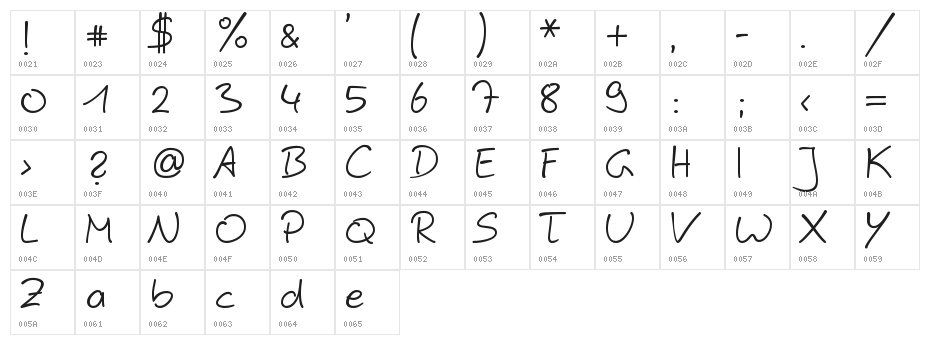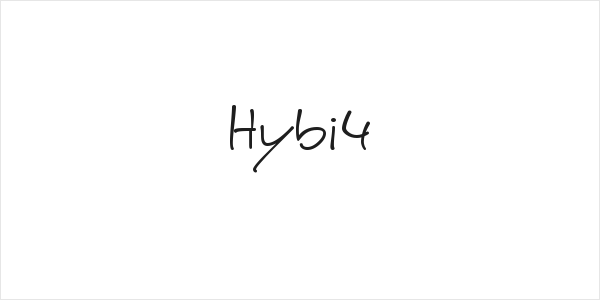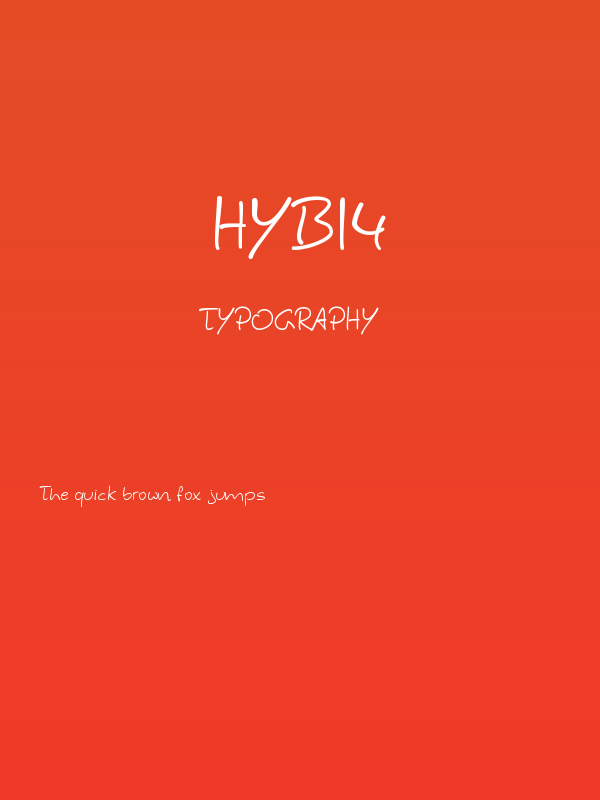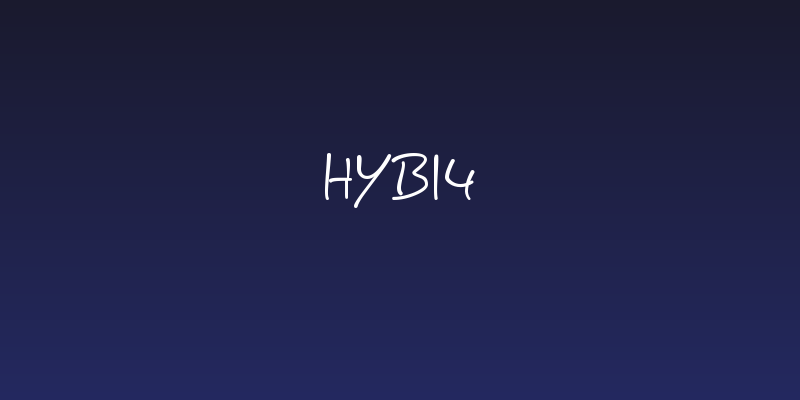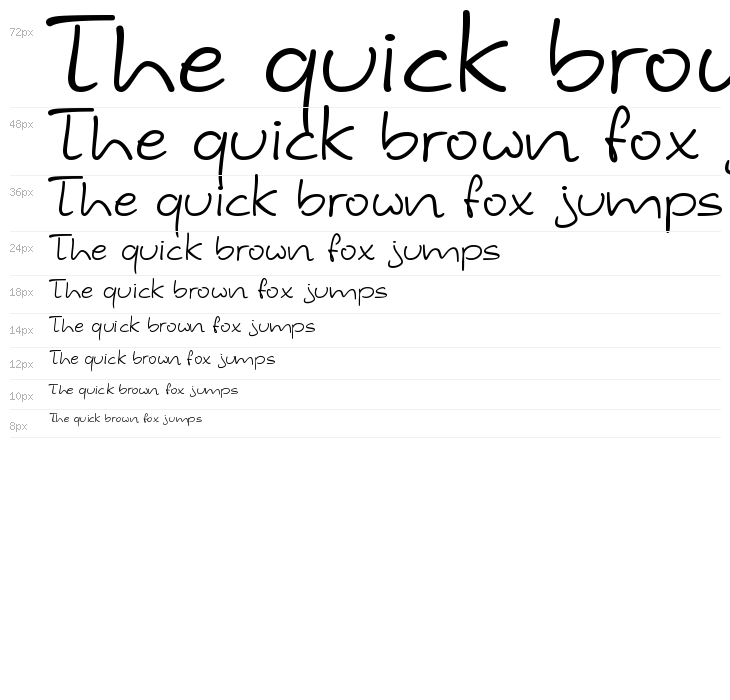
Hybi4 Font
Hybi4 Description
This font features a playful and casual handwritten style, characterized by its smooth, flowing lines and slightly irregular shapes. The uppercase letters are bold and expressive, with a slight slant that adds a dynamic feel. Lowercase letters maintain a consistent style, with rounded edges and a friendly appearance. The numerals are clear and easy to read, matching the overall informal aesthetic. Special characters are designed with the same playful touch, making them suitable for creative projects. The font's overall appearance is approachable and modern, making it ideal for projects that require a personal touch.